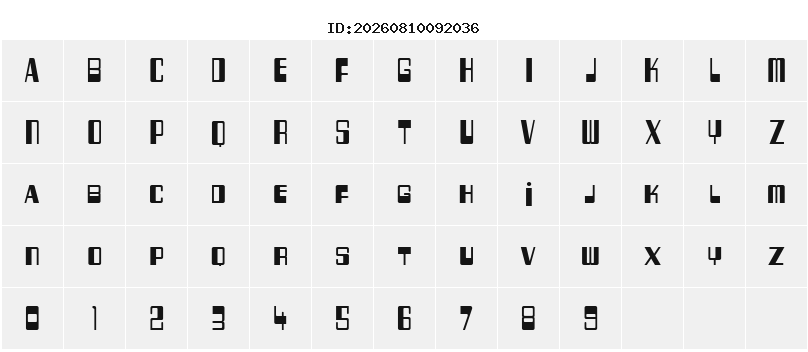
PCLifeNetone Preview
• Font Name: PCLifeNetone
• Full Font Name: PCLifeNetone
About PCLifeNetone.ttf
PCLifeNetone.ttf is a modern, elegant sans-serif font designed for ultimate readability and visual harmony. Perfect for branding, headlines, web design, and print materials.